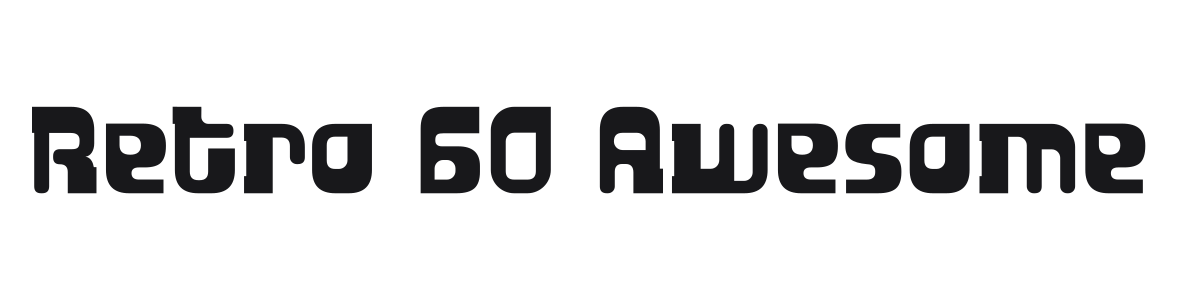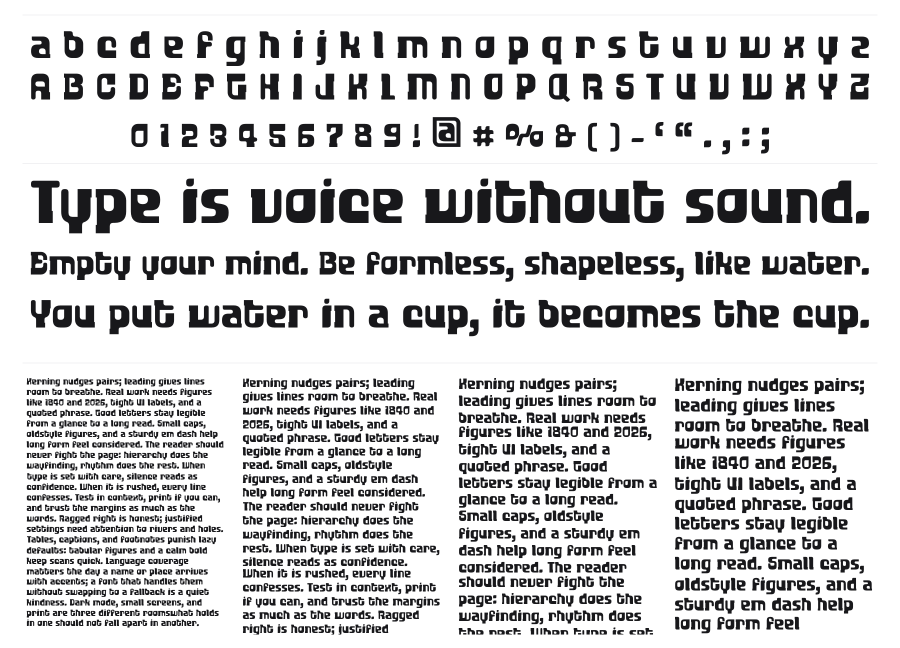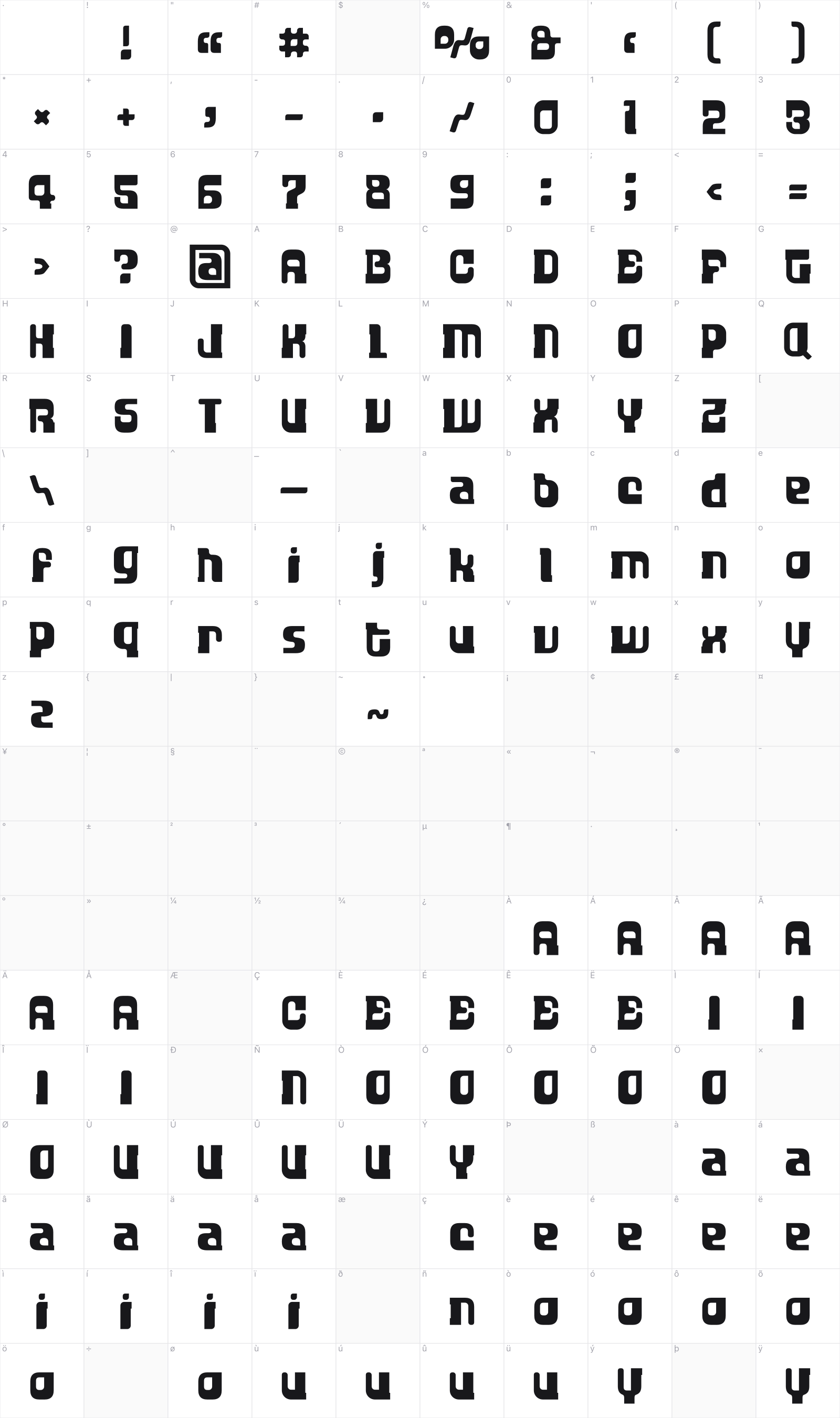
Retro 60 Awesome
Retro 60 Awesome is a heavy, rounded display font built around the mod aesthetics of 1960s pop design. Its blocky characters have deep concave notches and rounded corners that give each letter a chunky, almost toy-like presence. Strong at large sizes on posters, labels, and anything that needs a vintage groove.